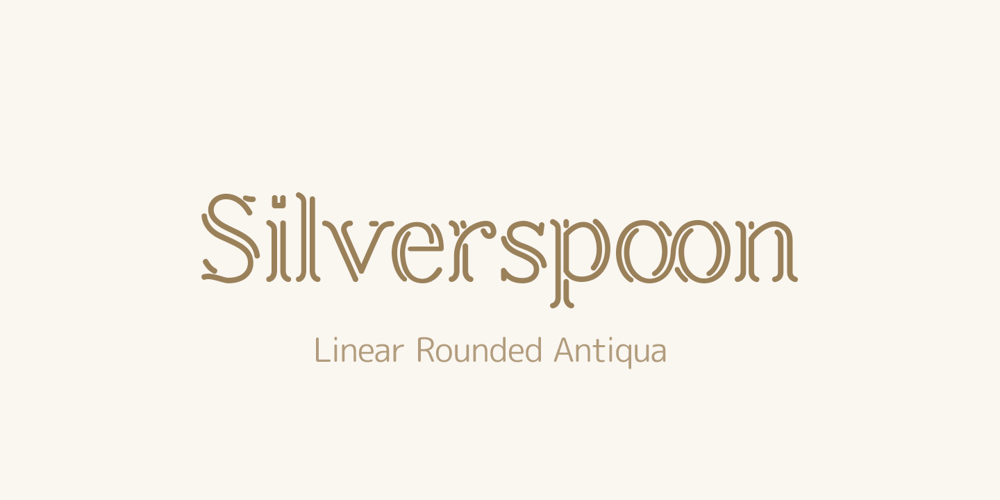
Silverspoon Font Family was designed by Ilya Nikitin and published by Vred Letters. Silverspoon contains 1 styles and family package options. The design of Silverspoon reproduces classic antiqua with rounded contours, and is ideal for many uses including headlines, neon signage, and stencil. Silverspoon supports Extended Latin as well as Extended Cyrillic.